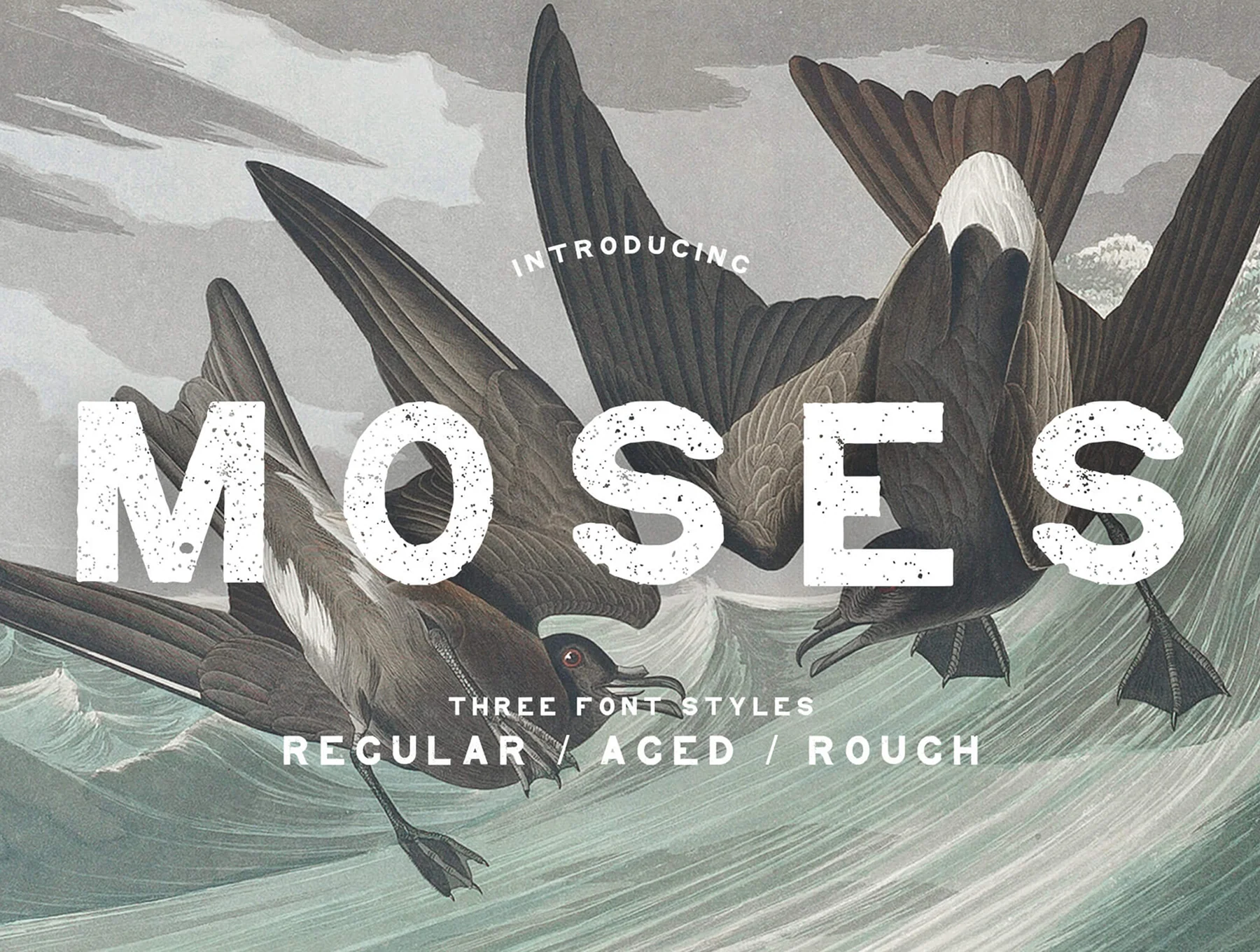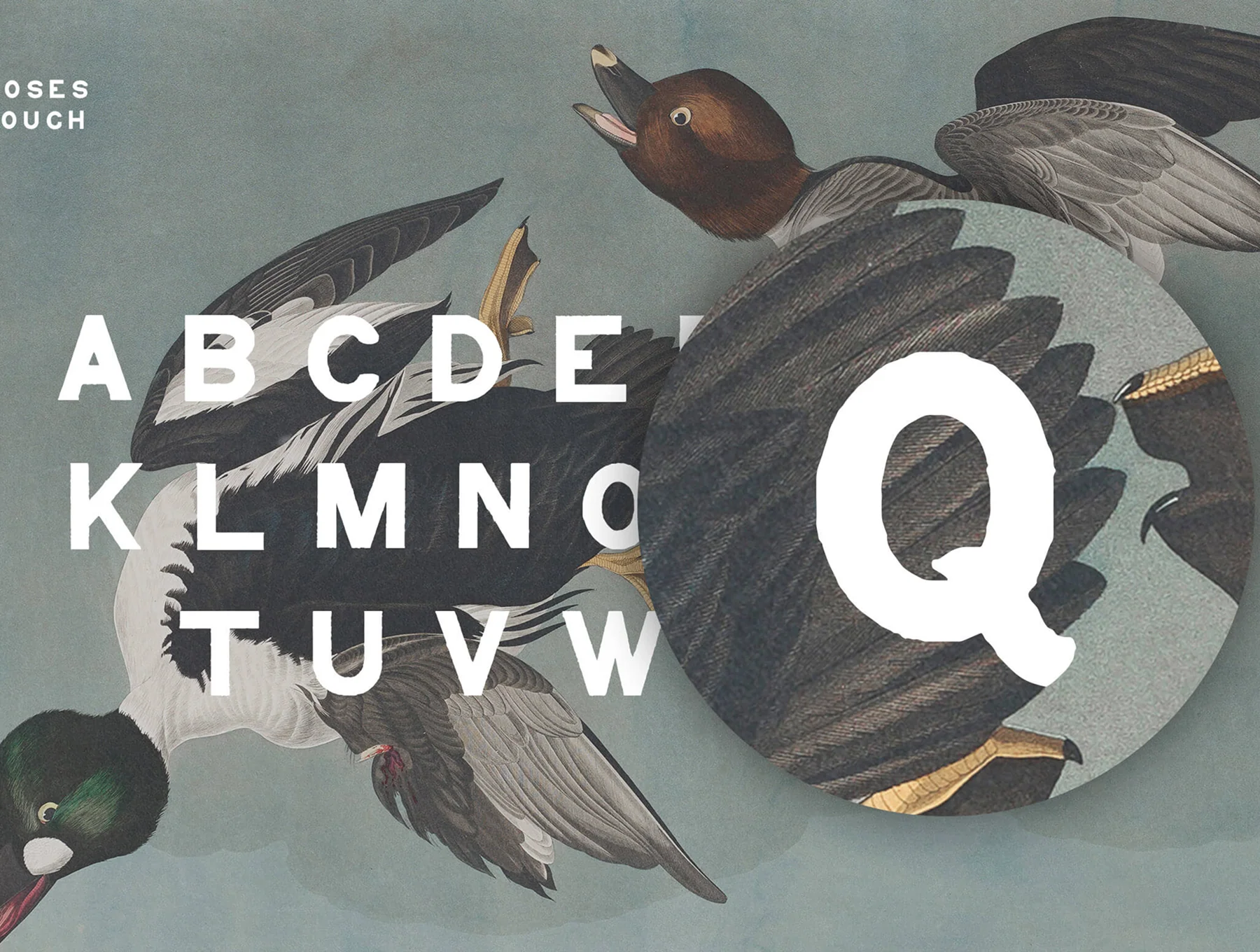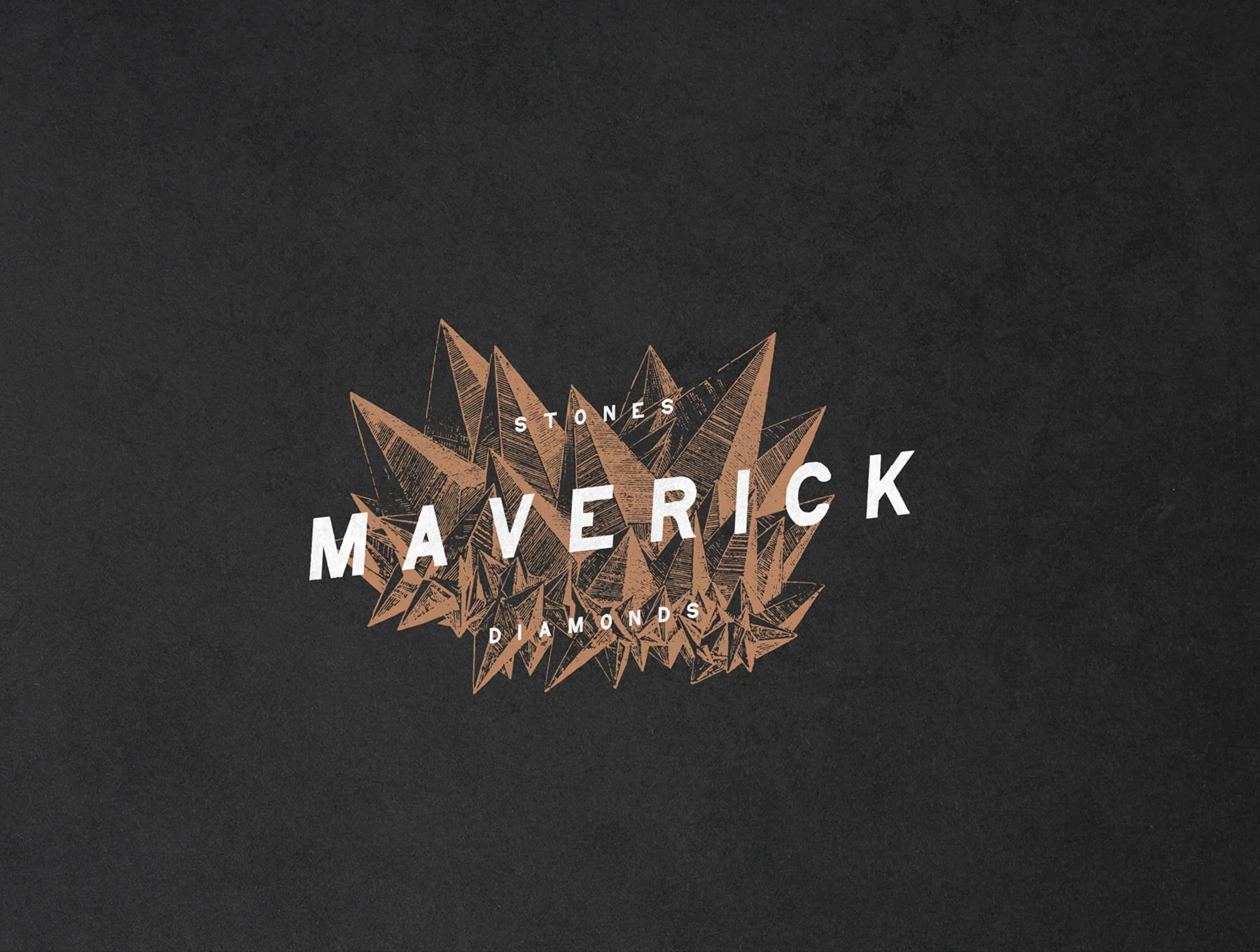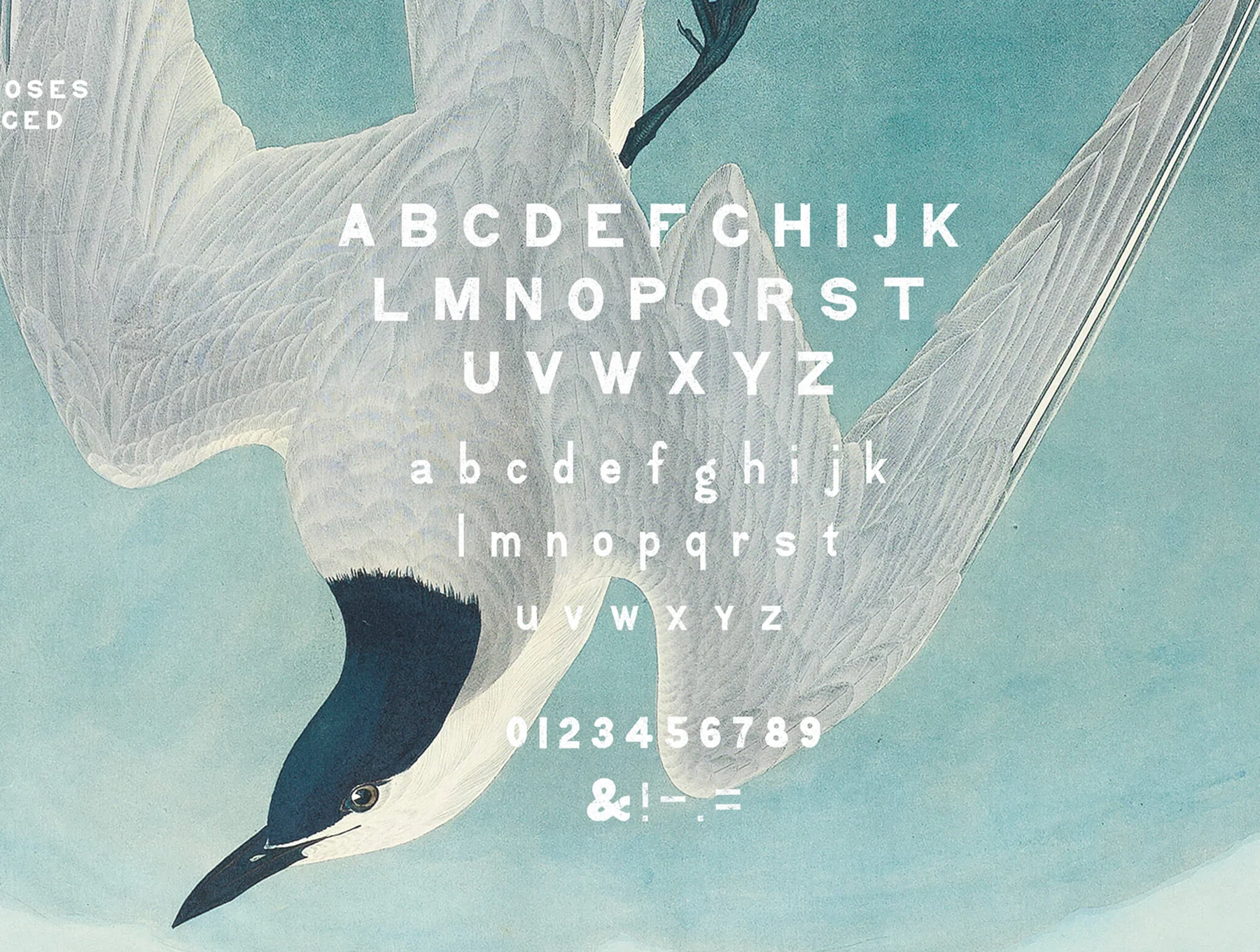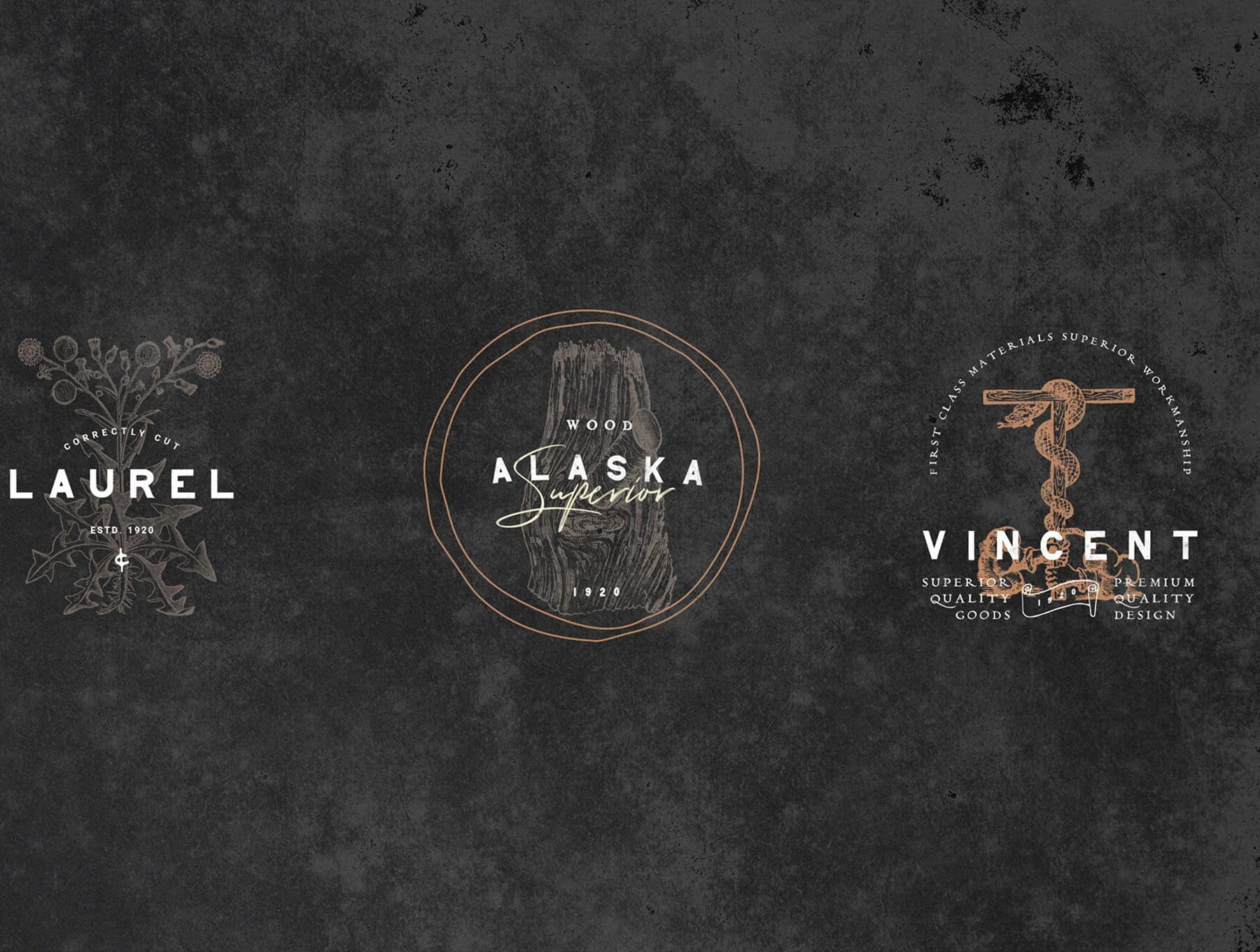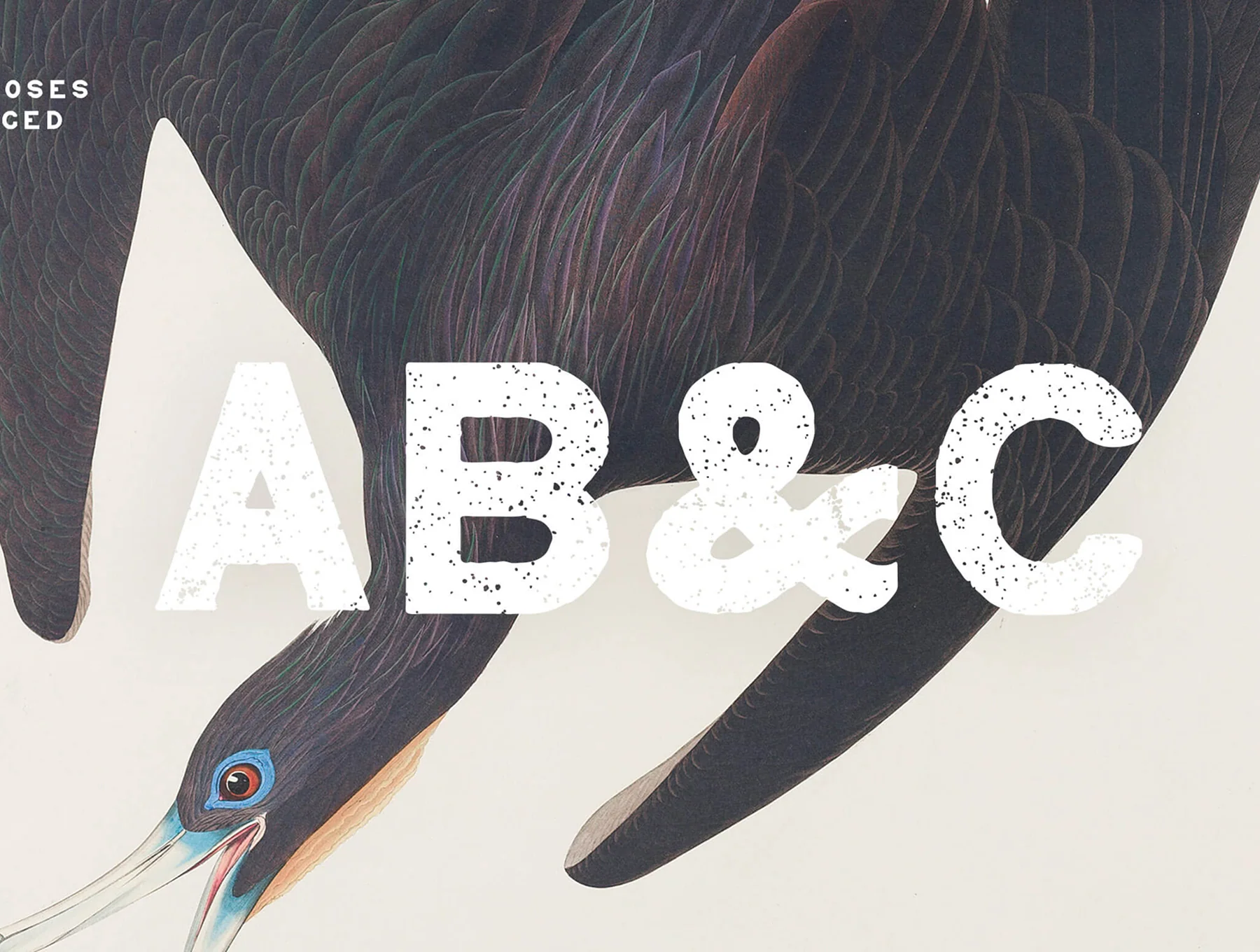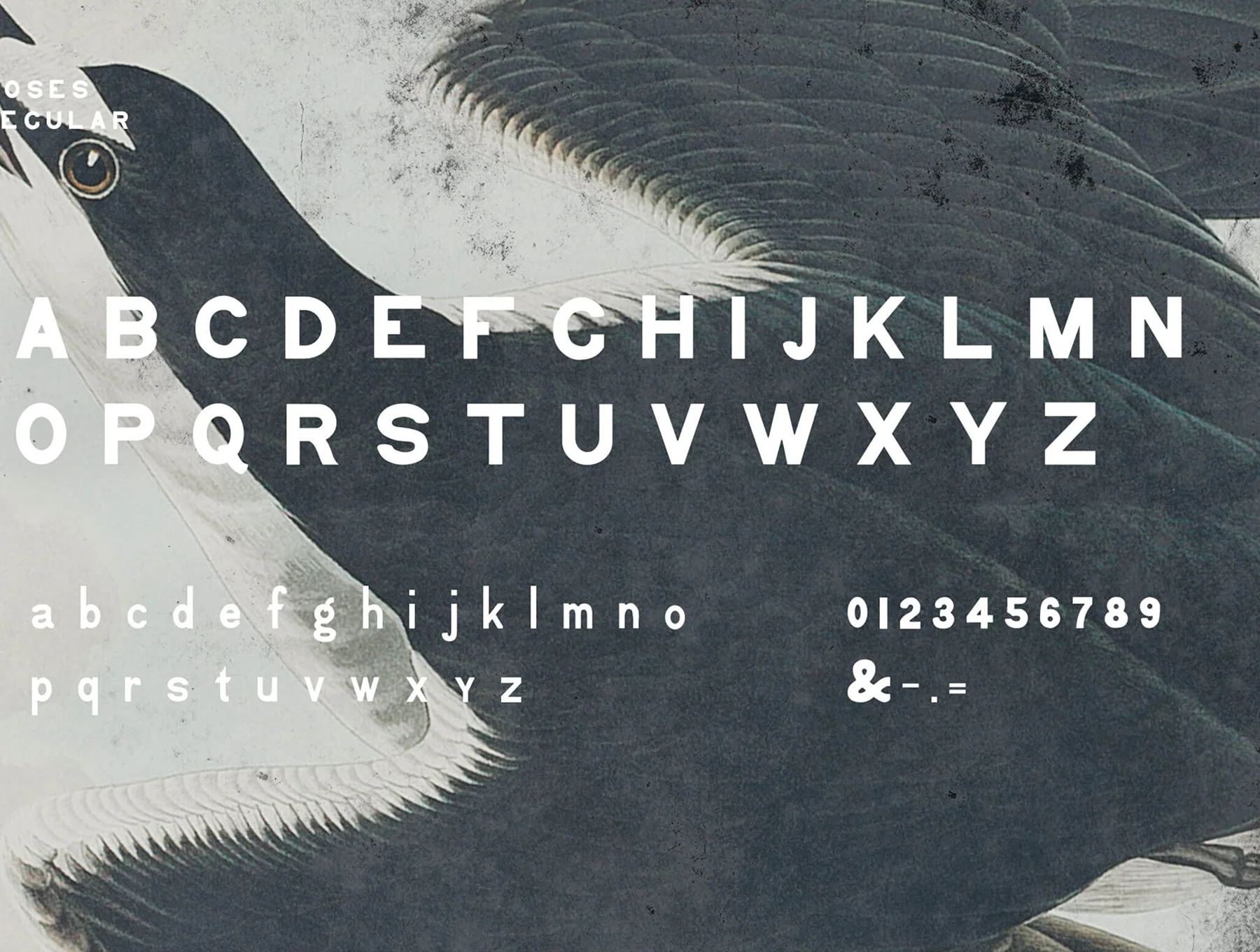
Moses – Display Grotesque Typeface (Regular, Rough, Aged)
Striking grotesque font influenced by 19th-century typography and archaeology.
Egyptian-inspired display grotesque typeface
Includes Regular, Rough, and Aged styles
Heavy slab forms create striking contrast
Great for logos, product labels, and oversized headings
Moses is a display grotesque influenced by early 1800s “Egyptian” type, with sturdy, geometric forms that evoke chiseled stone. Available in Regular, Rough, and Aged, it offers varied textures and character. Ideal for titles, branding, and packaging, Moses creates bold impact with a classic industrial edge.